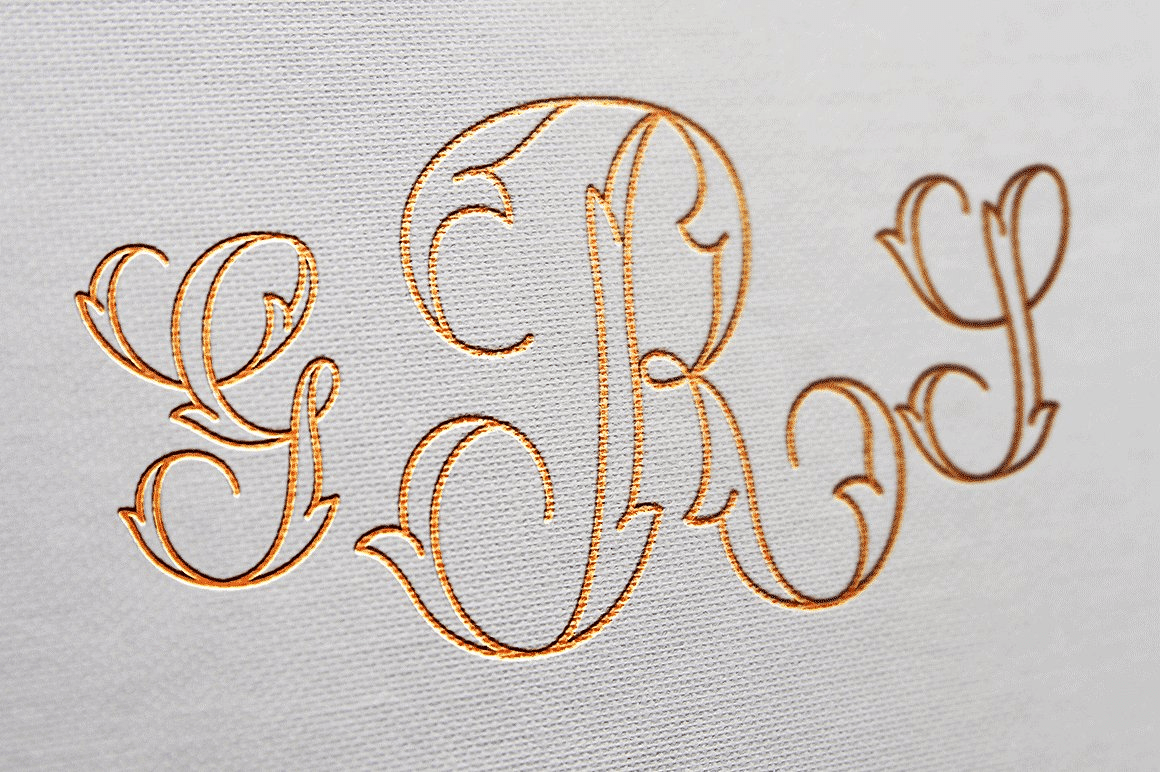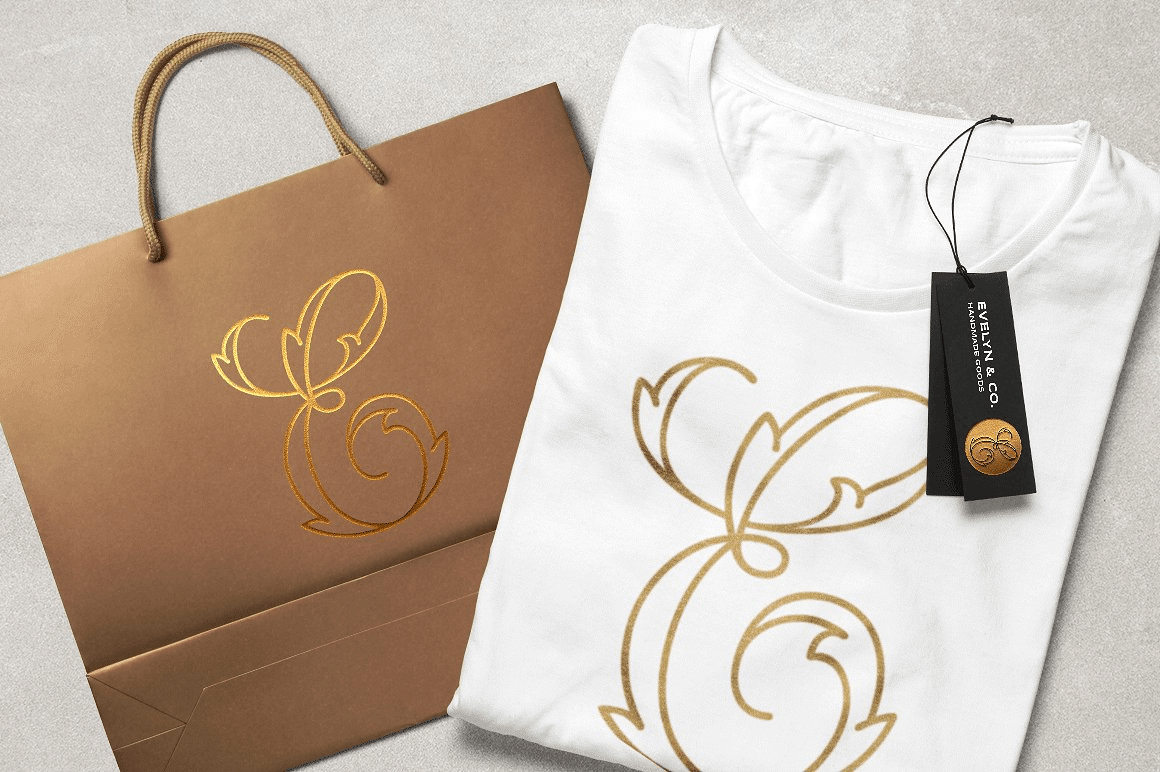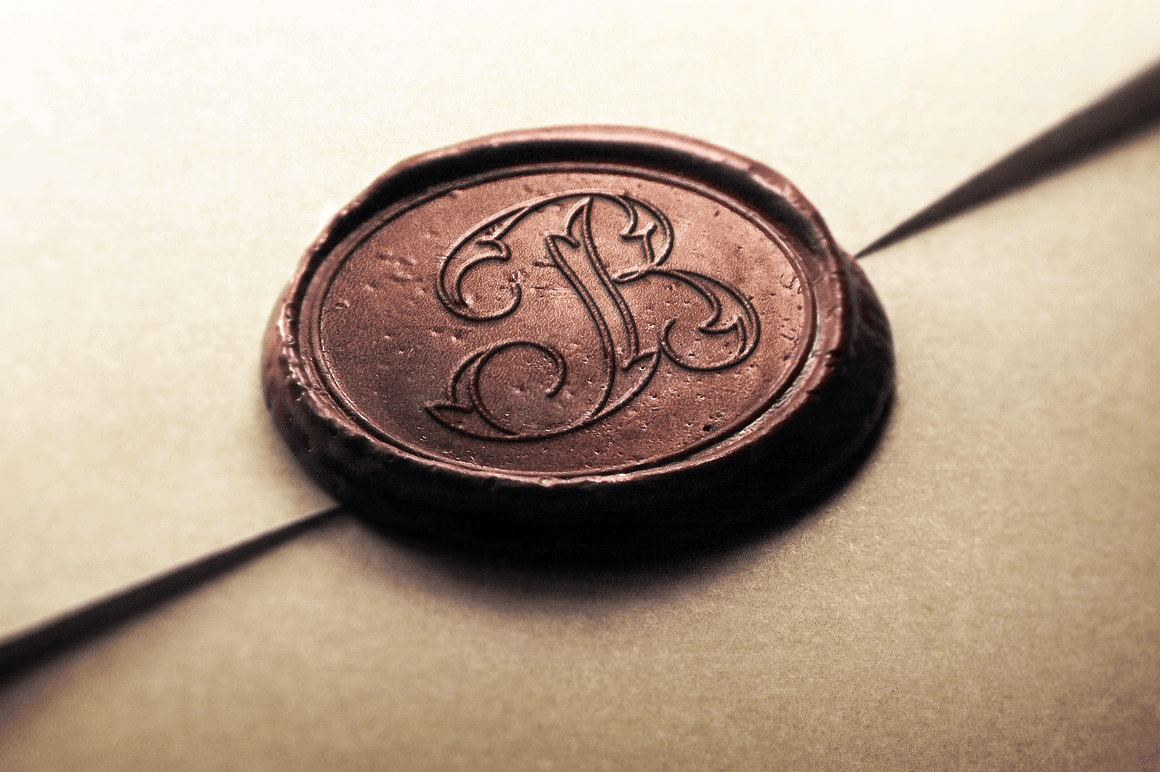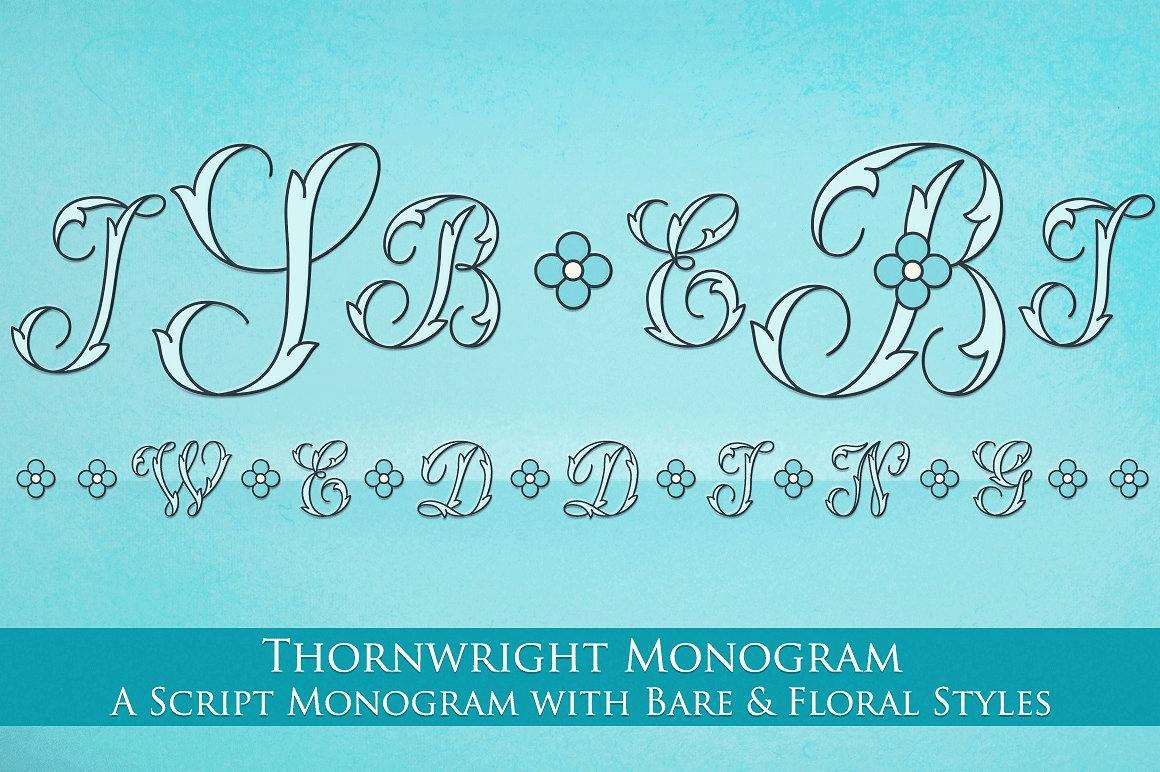
MFC Thornwright Monogram
The inspiration source for MFC Thornwright Monogram is a beautiful letterset from the "Manuel de Broderies No. 179" by N. Alexandre & Cie. from the late 1800's. Thornwright Monogram is capable of automatic 3-letter monogram formatting as well as bare & floral styles utilizing Ligature & Stylistic Alternates features. We've included both the bare and the original florally adorned versions of the Capitals to offer more design versatility.